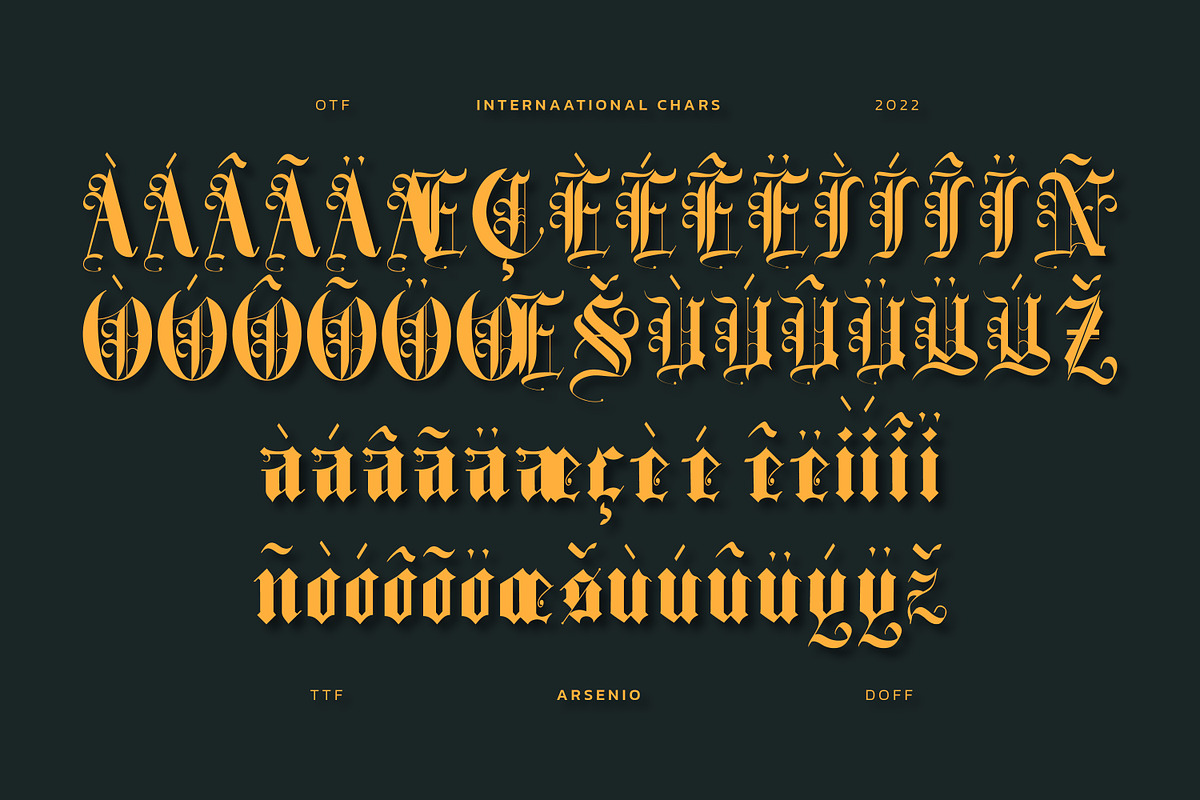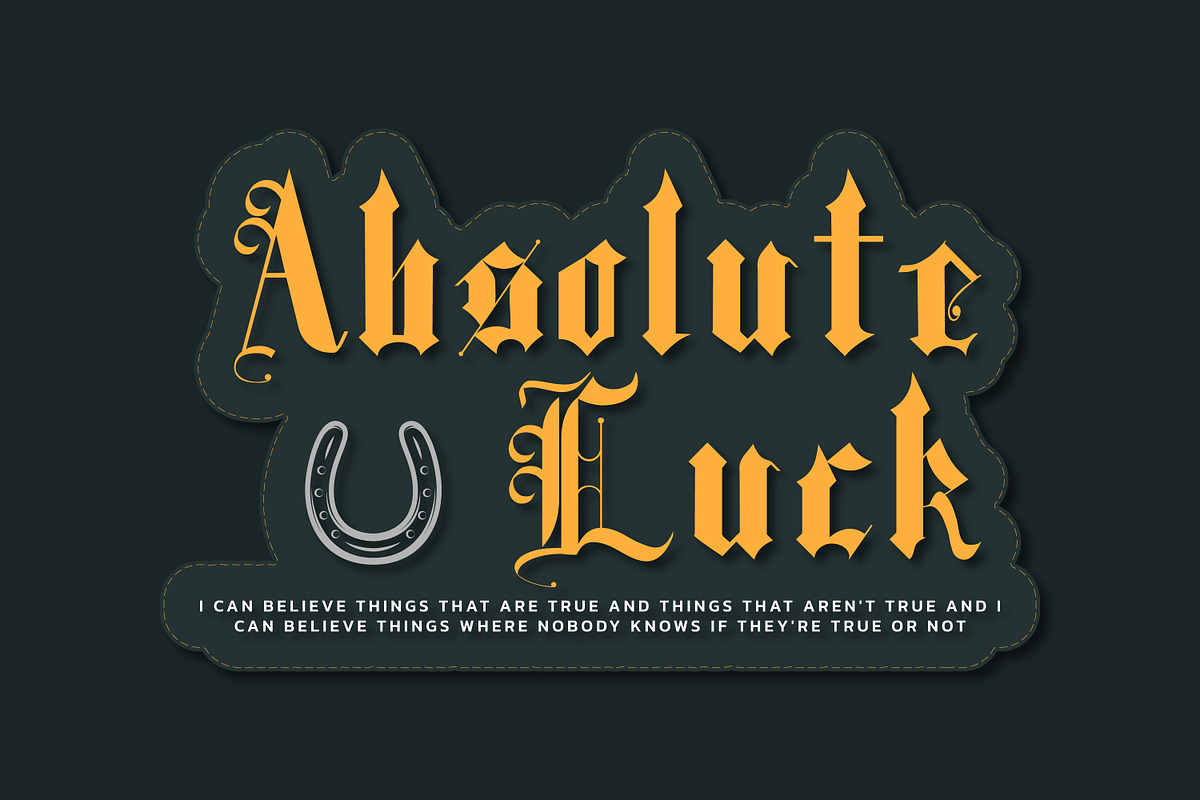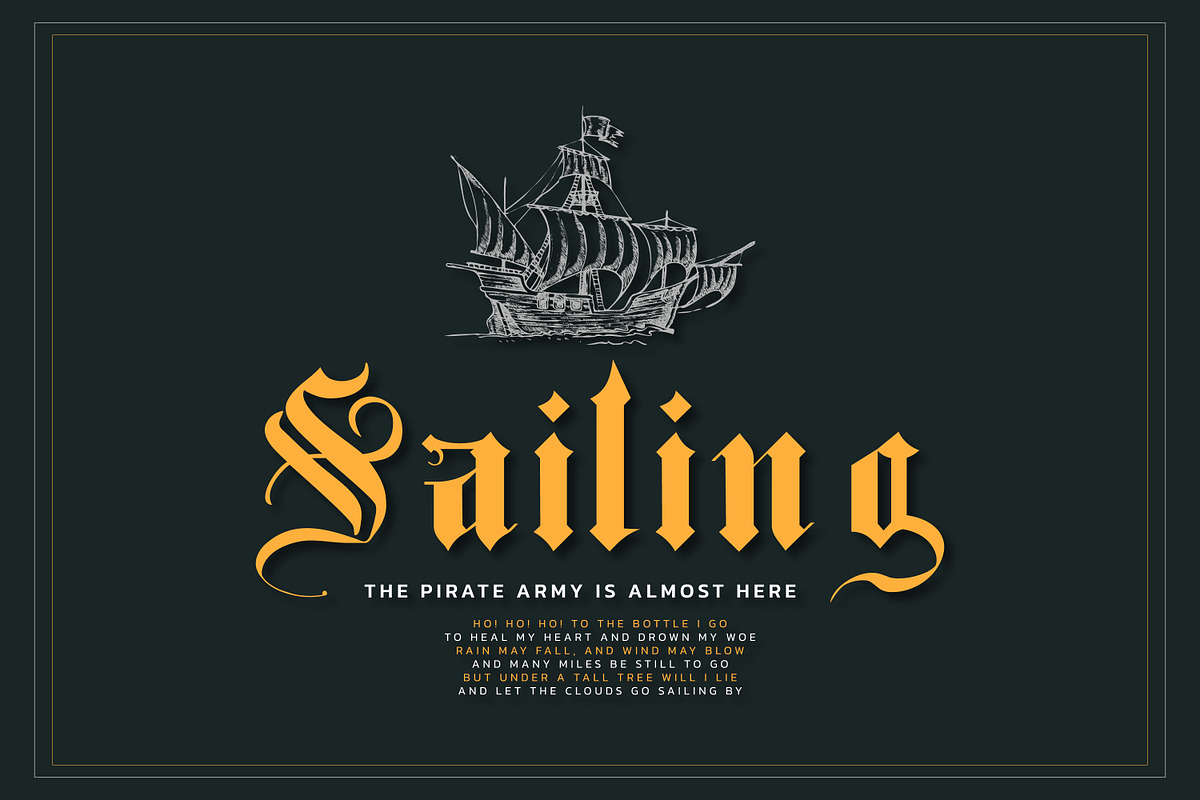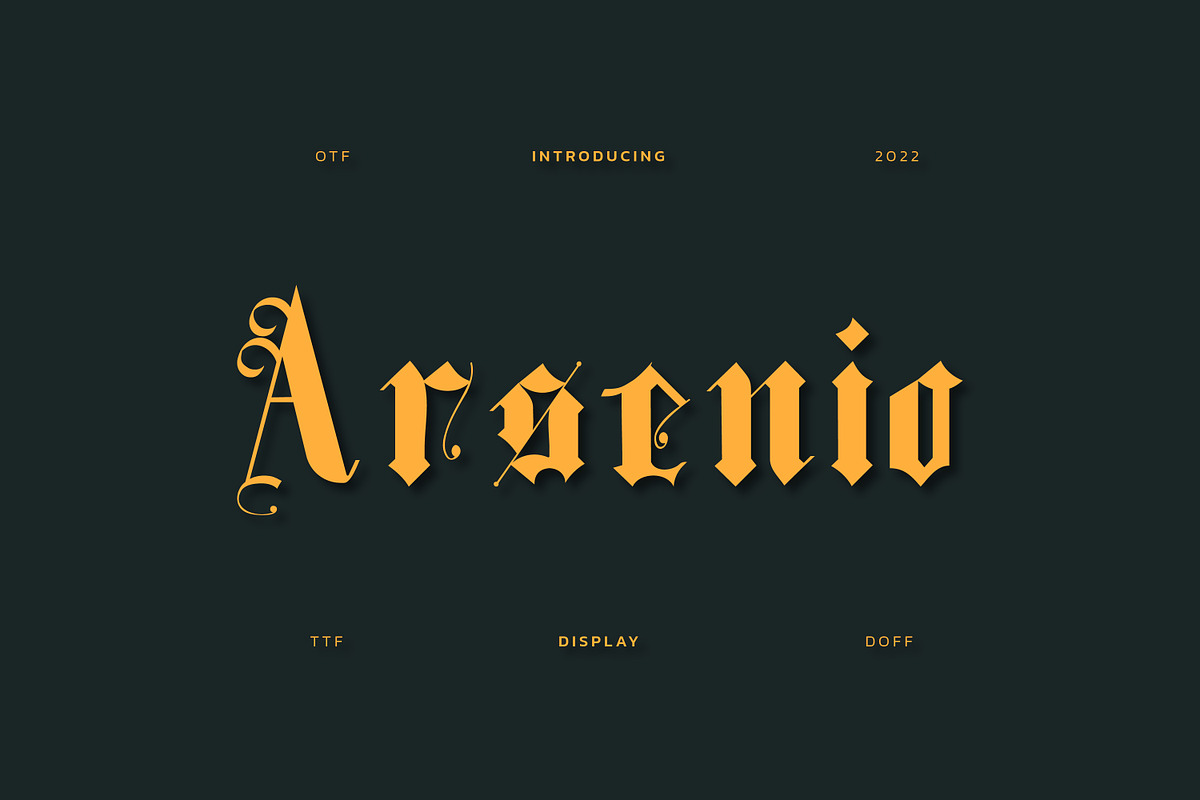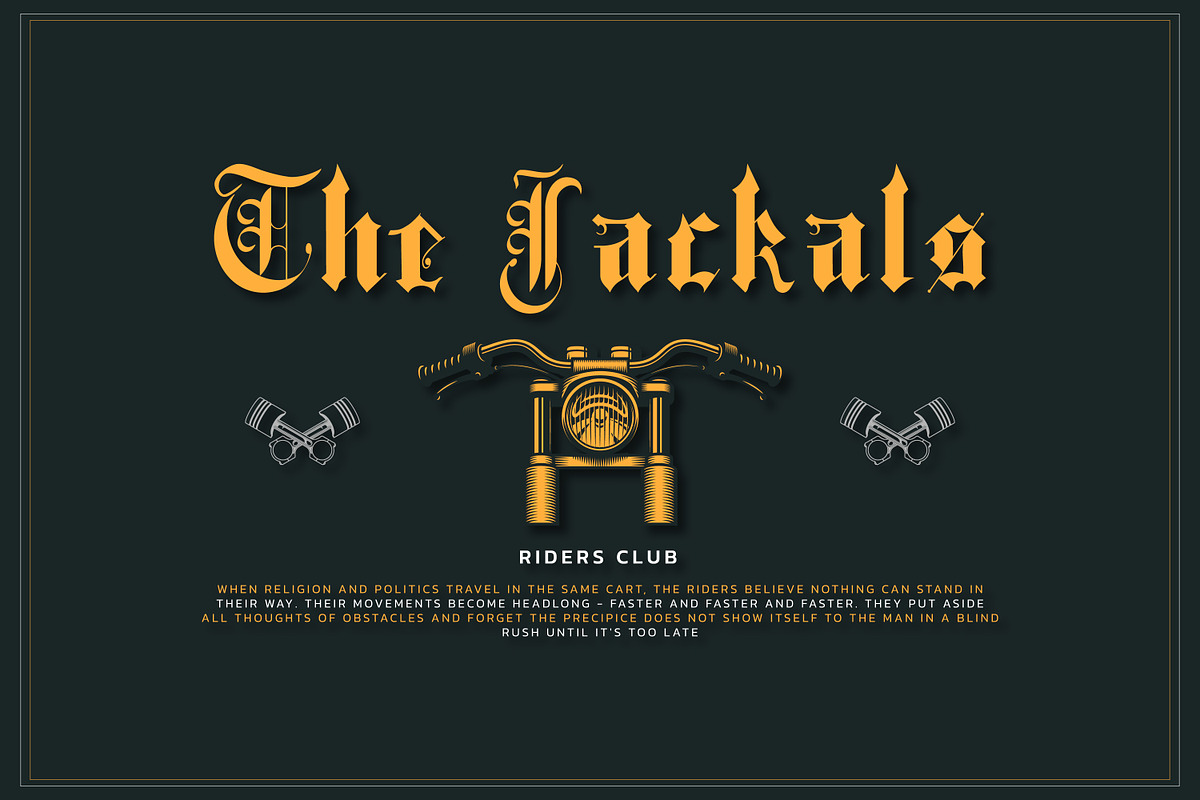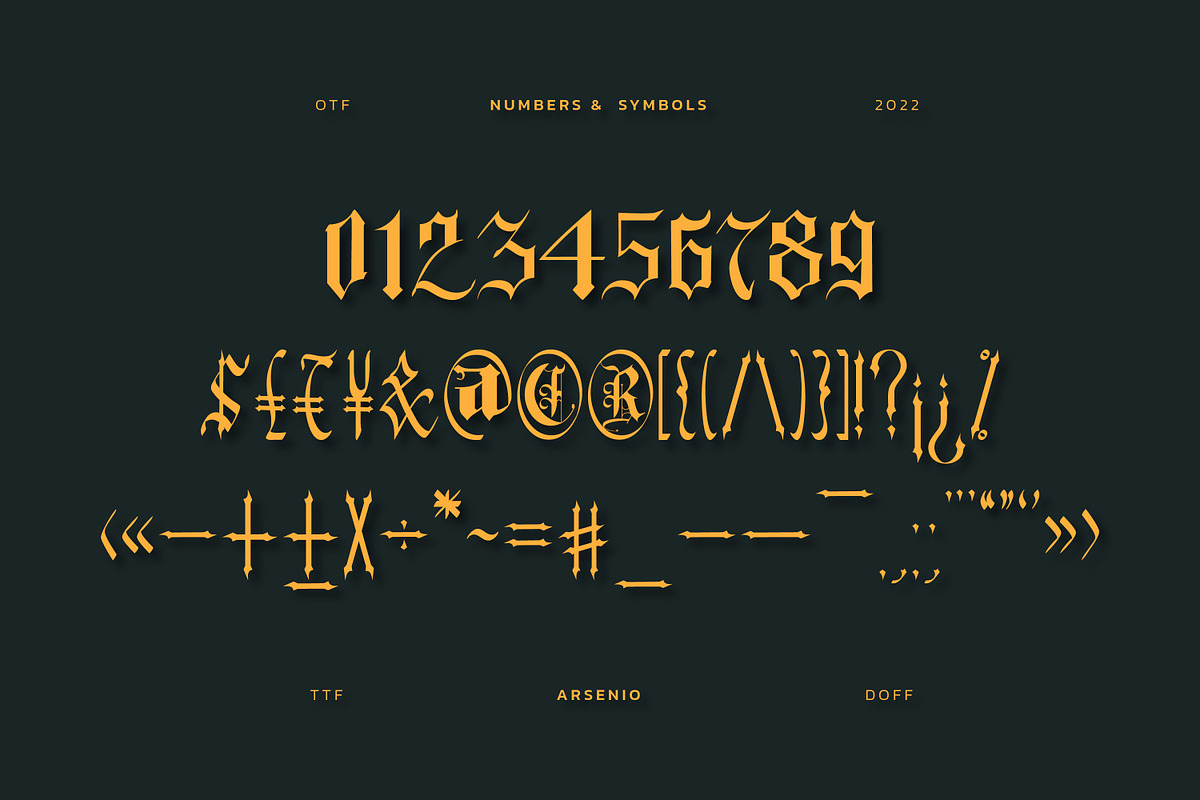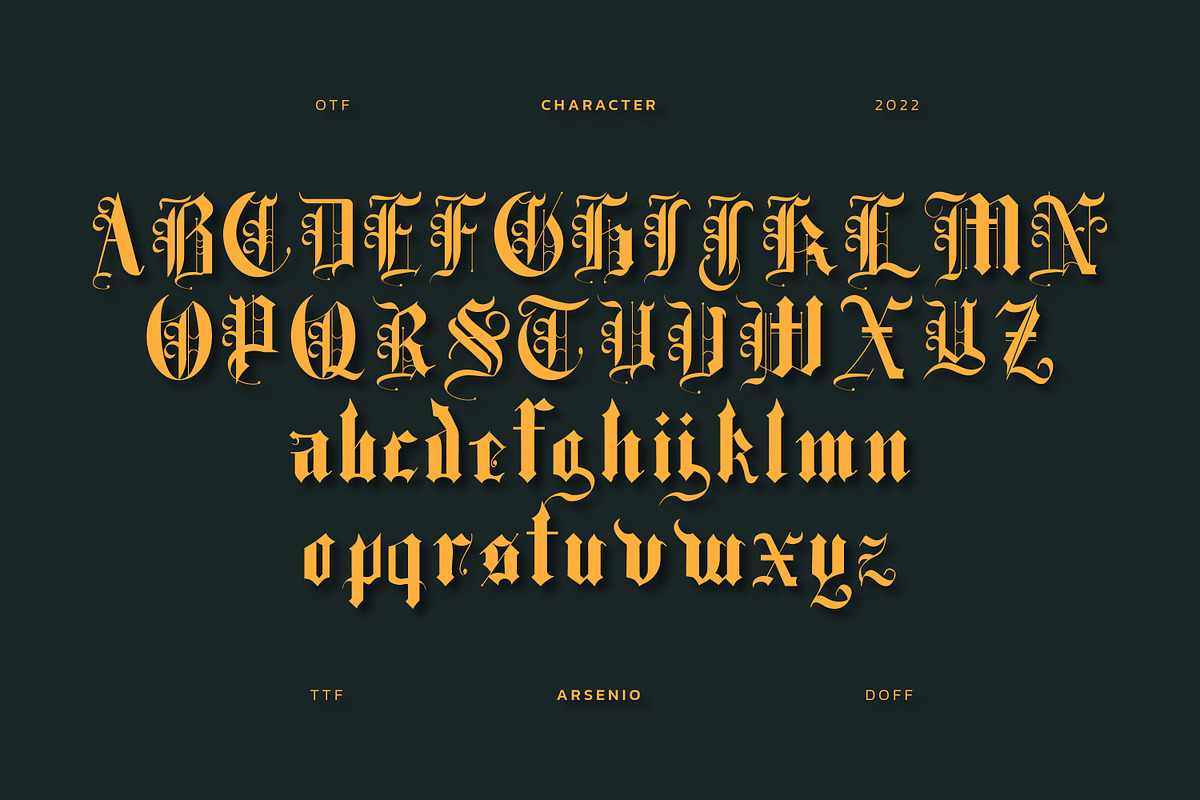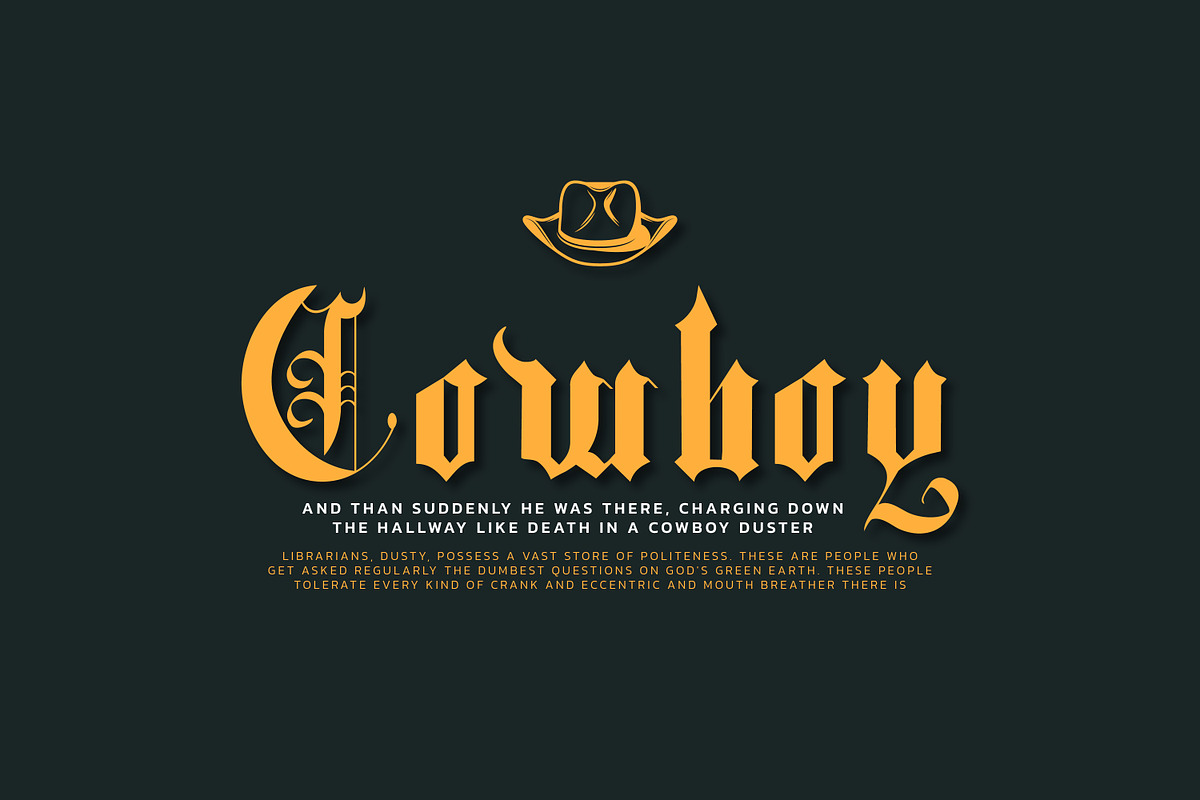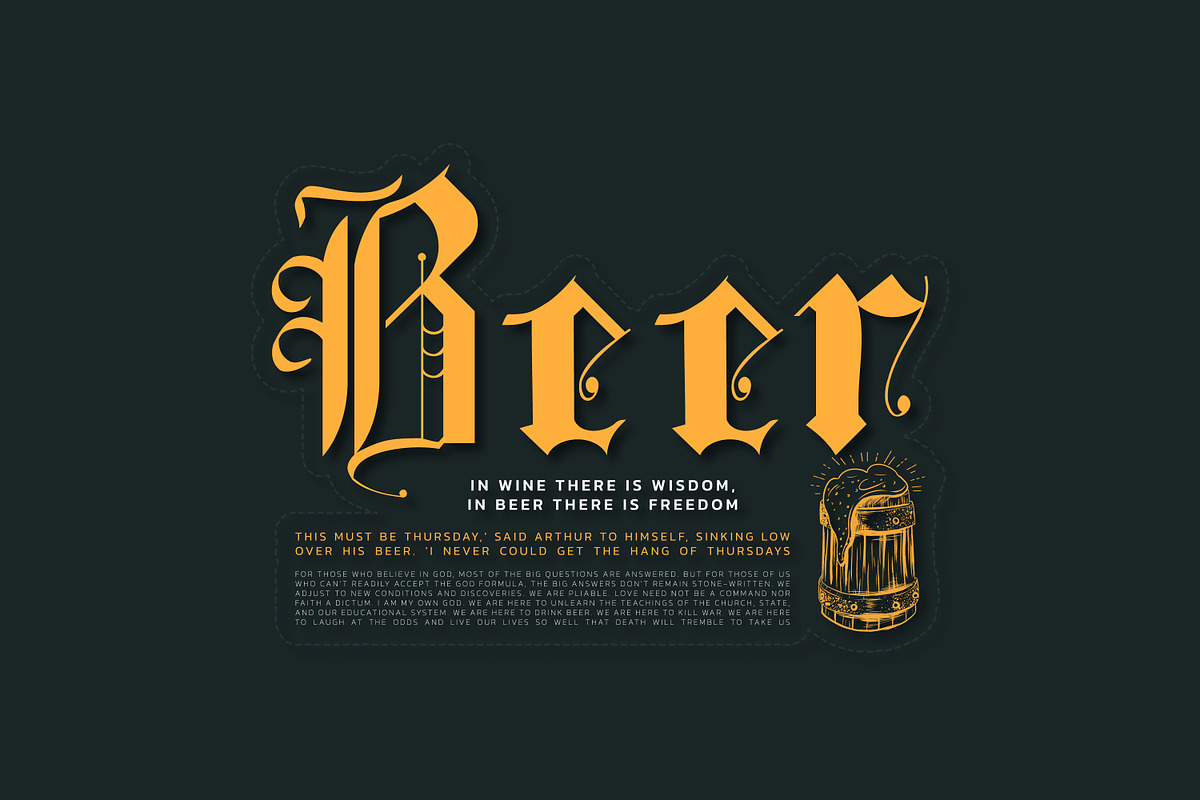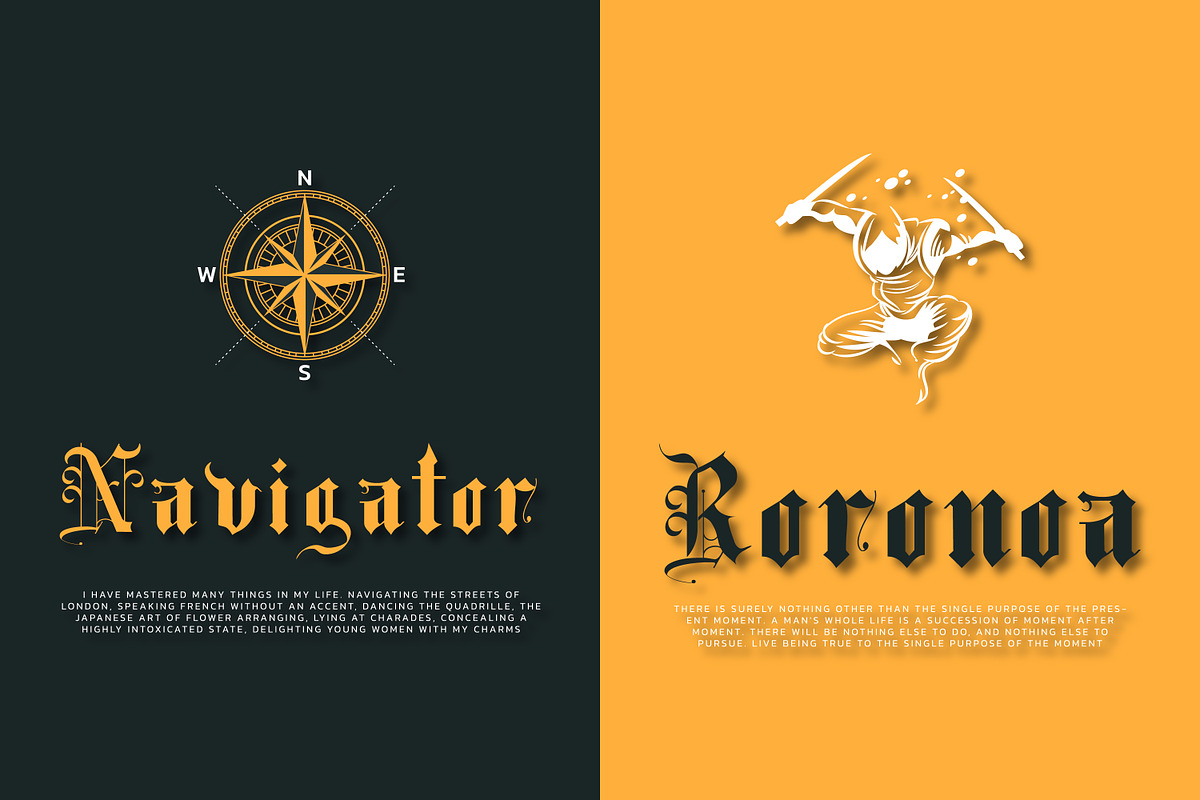
Arsenio Splendid Blackletter
Arsenio is a splendid blackletter display font. Its Gothic-inspired characters give it a sophisticated and elegant appearance that is perfect for all your projects that need bold and daring typography.